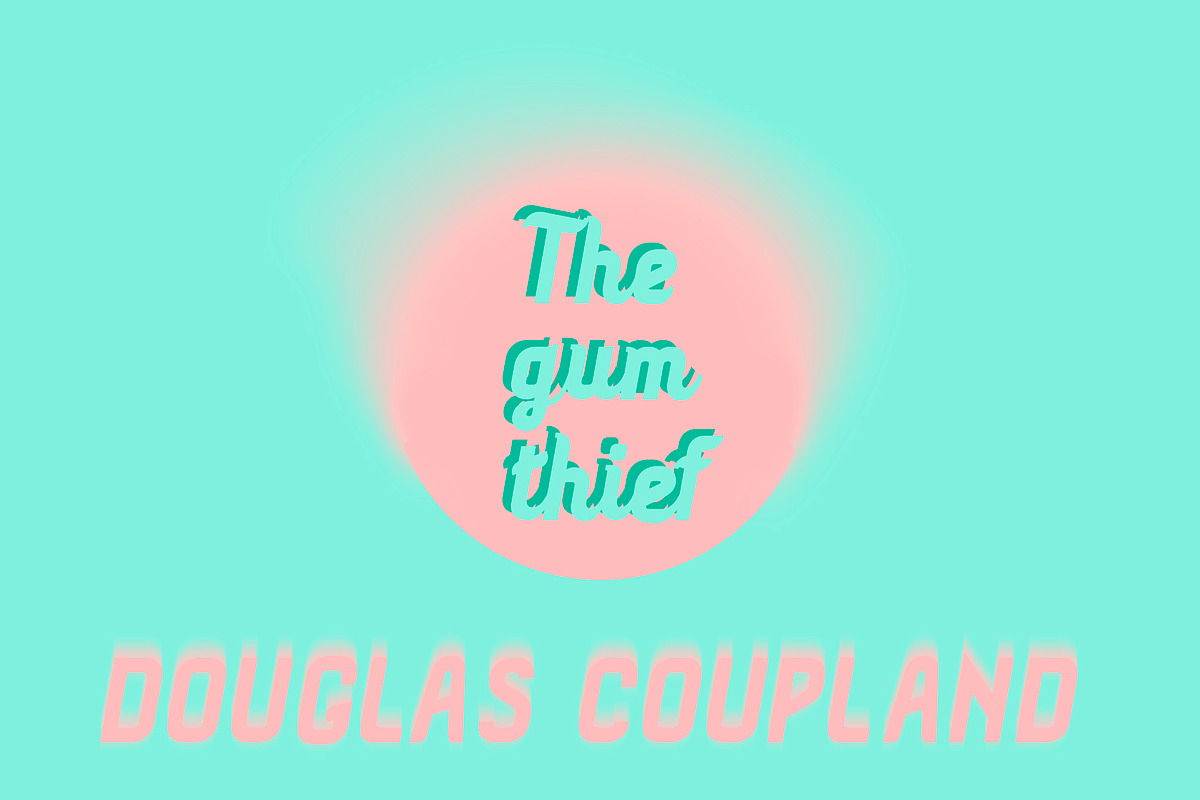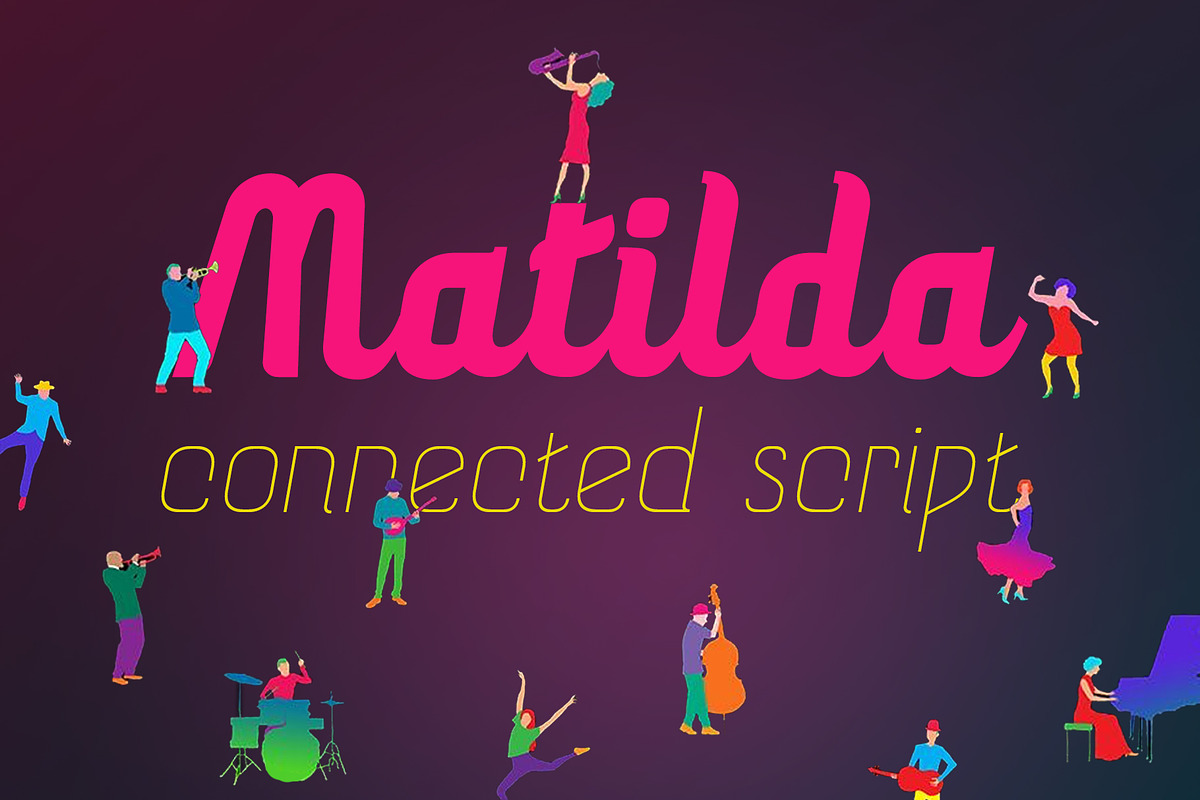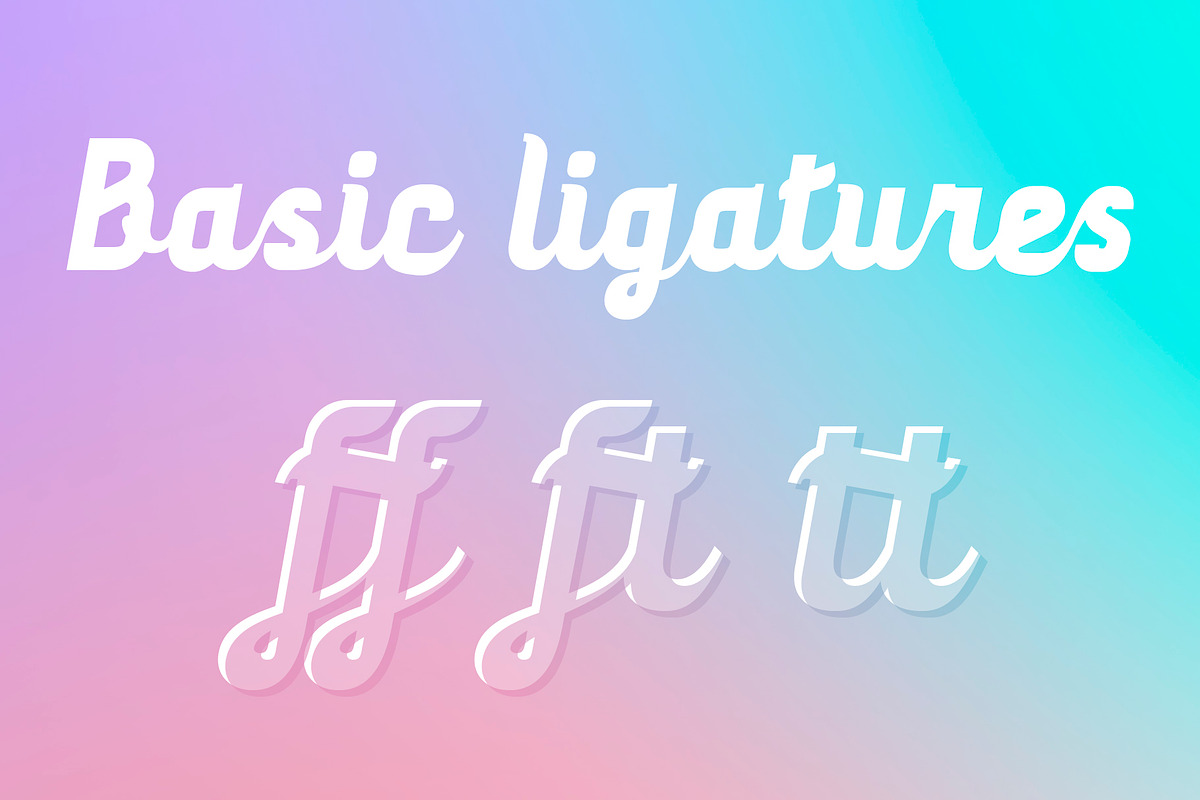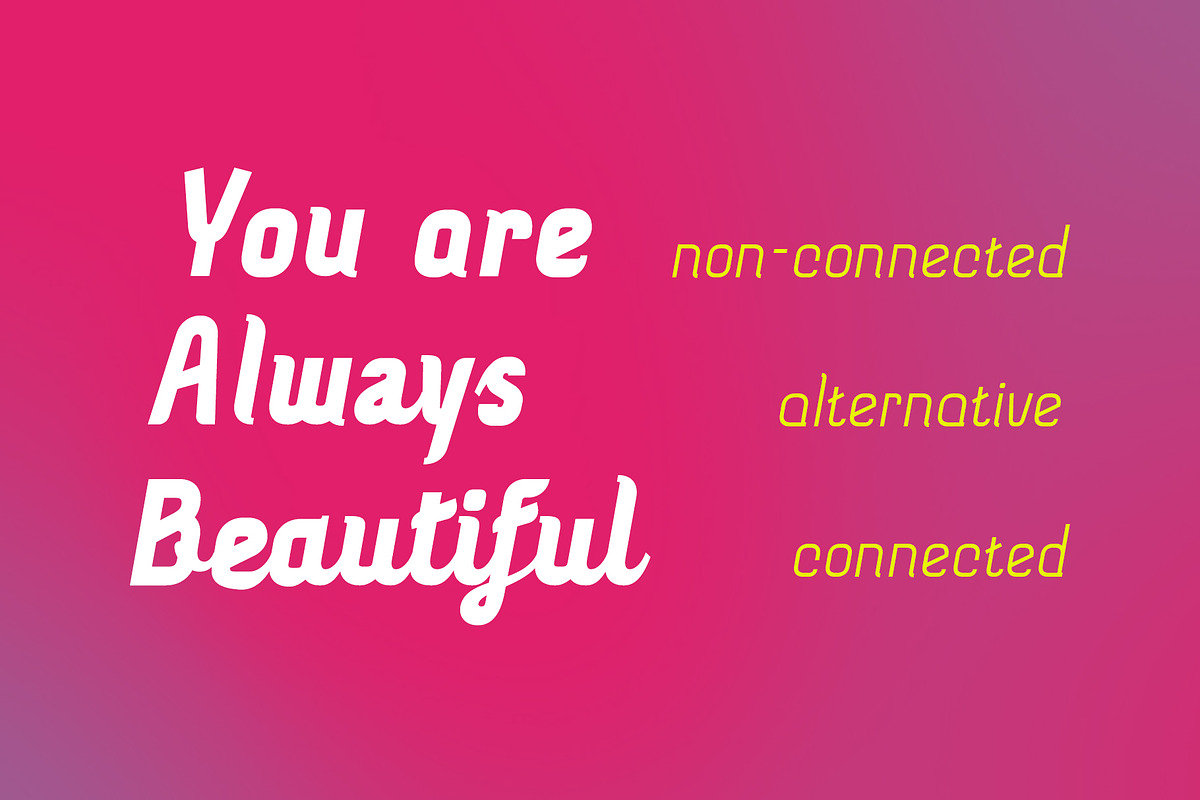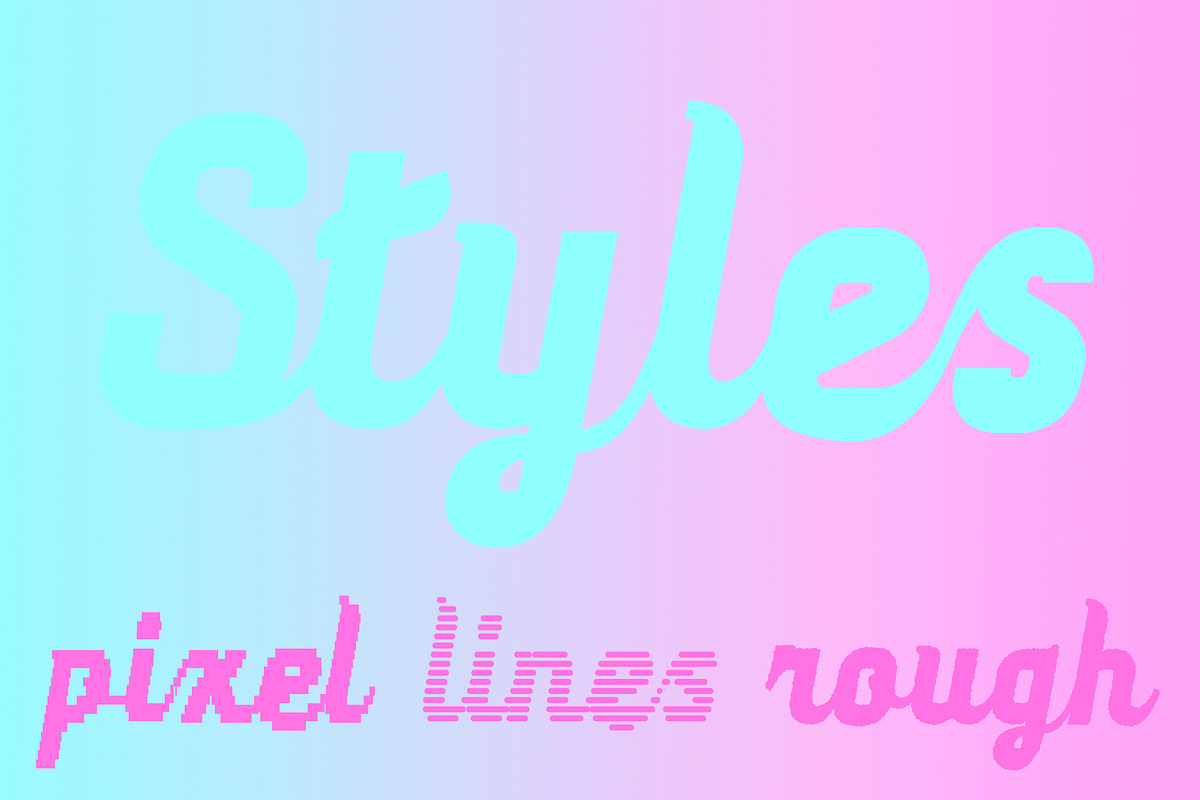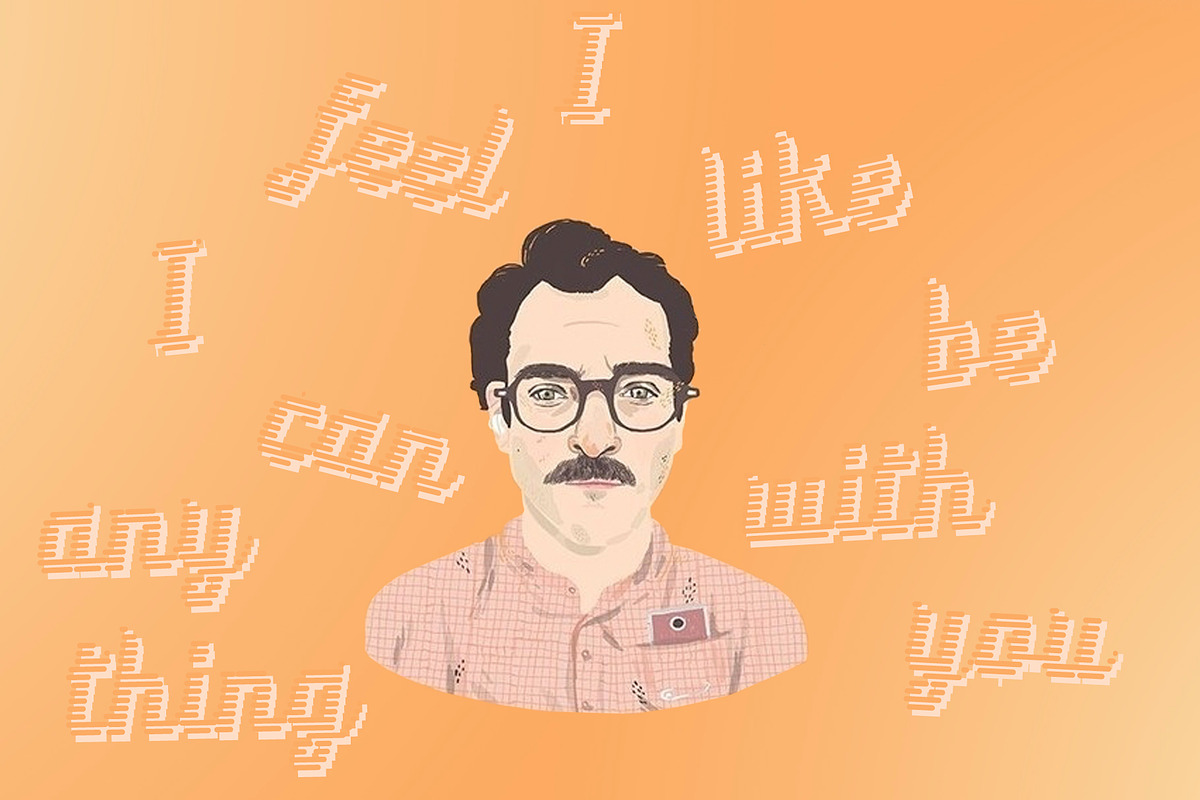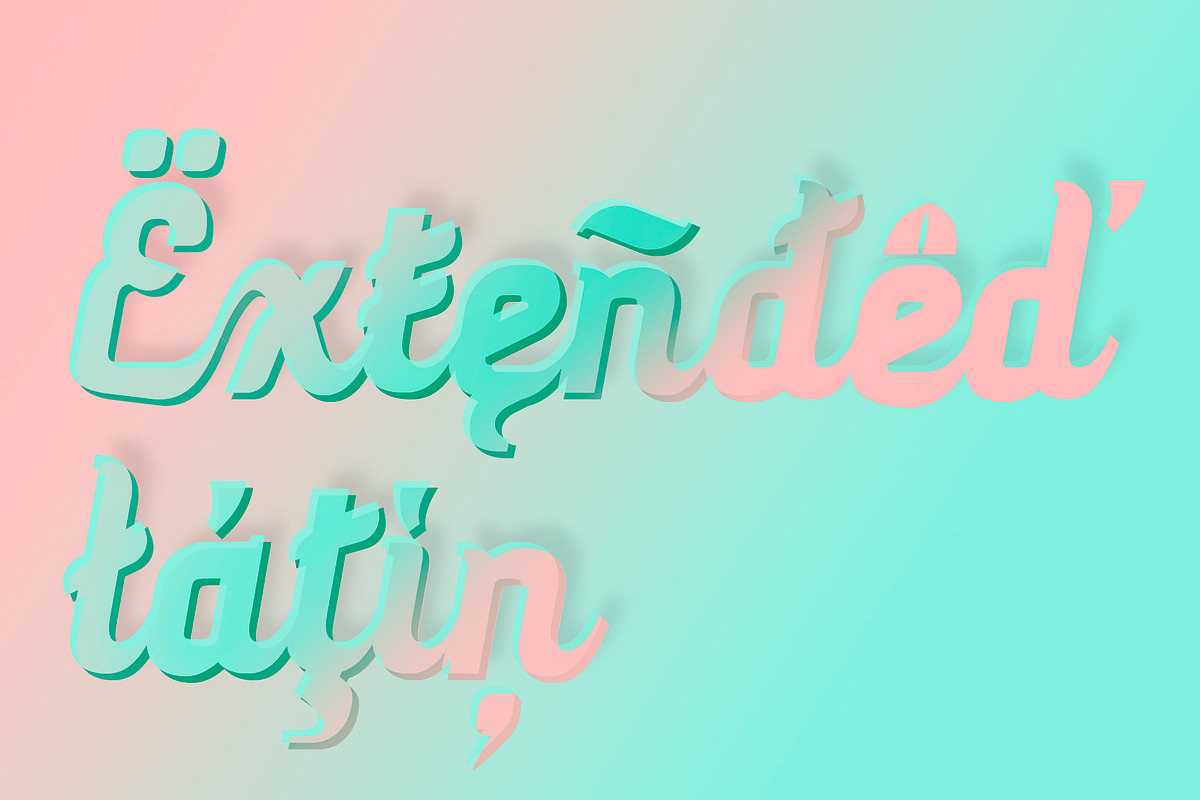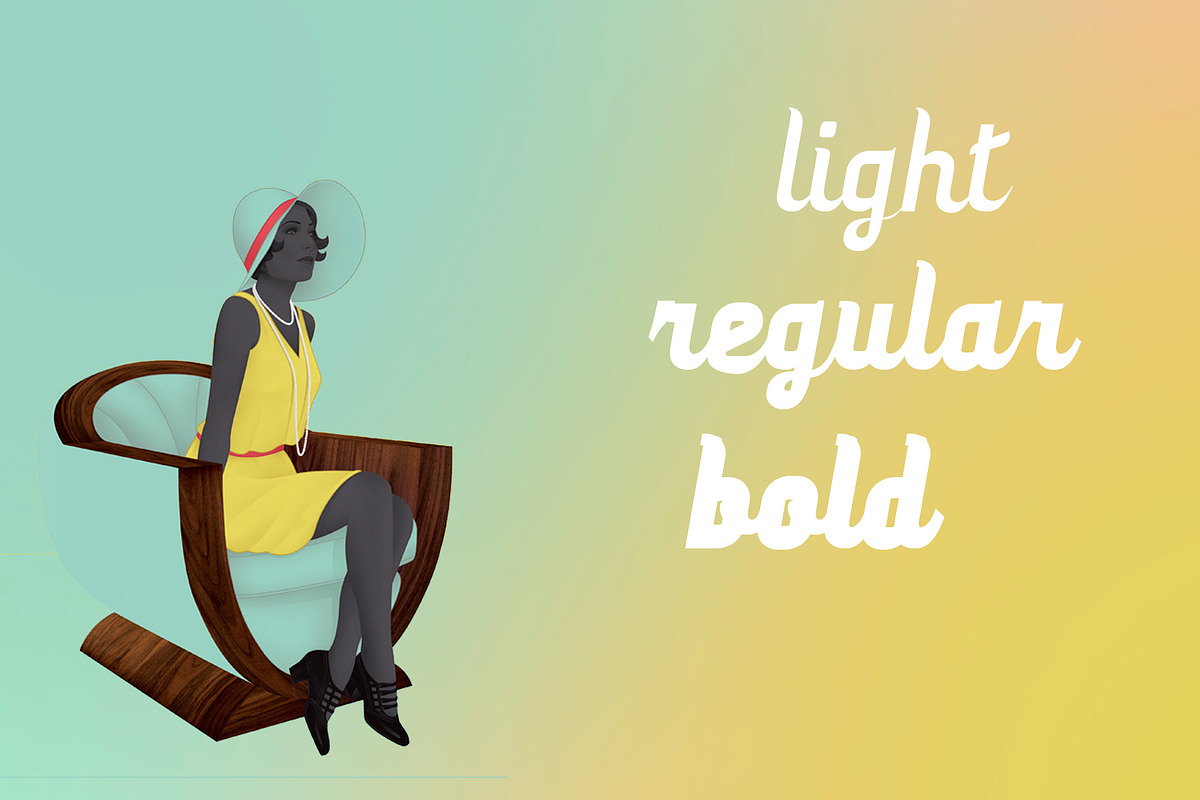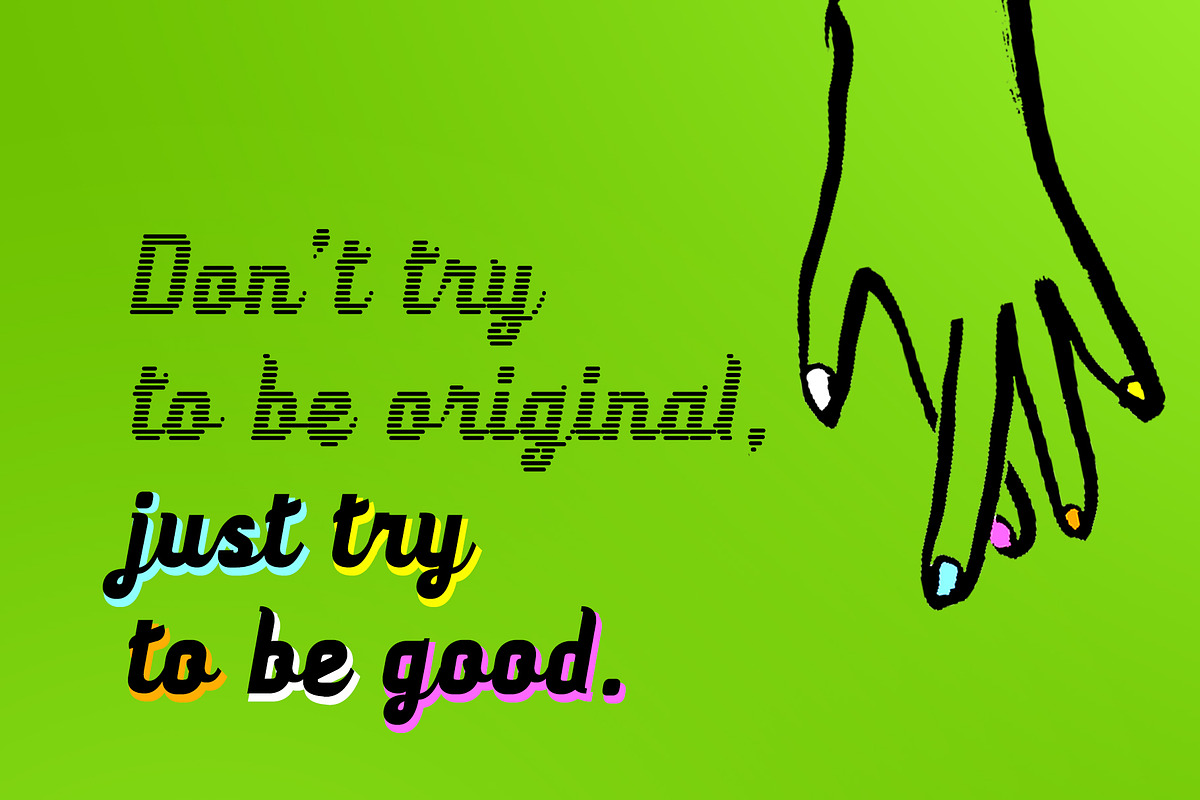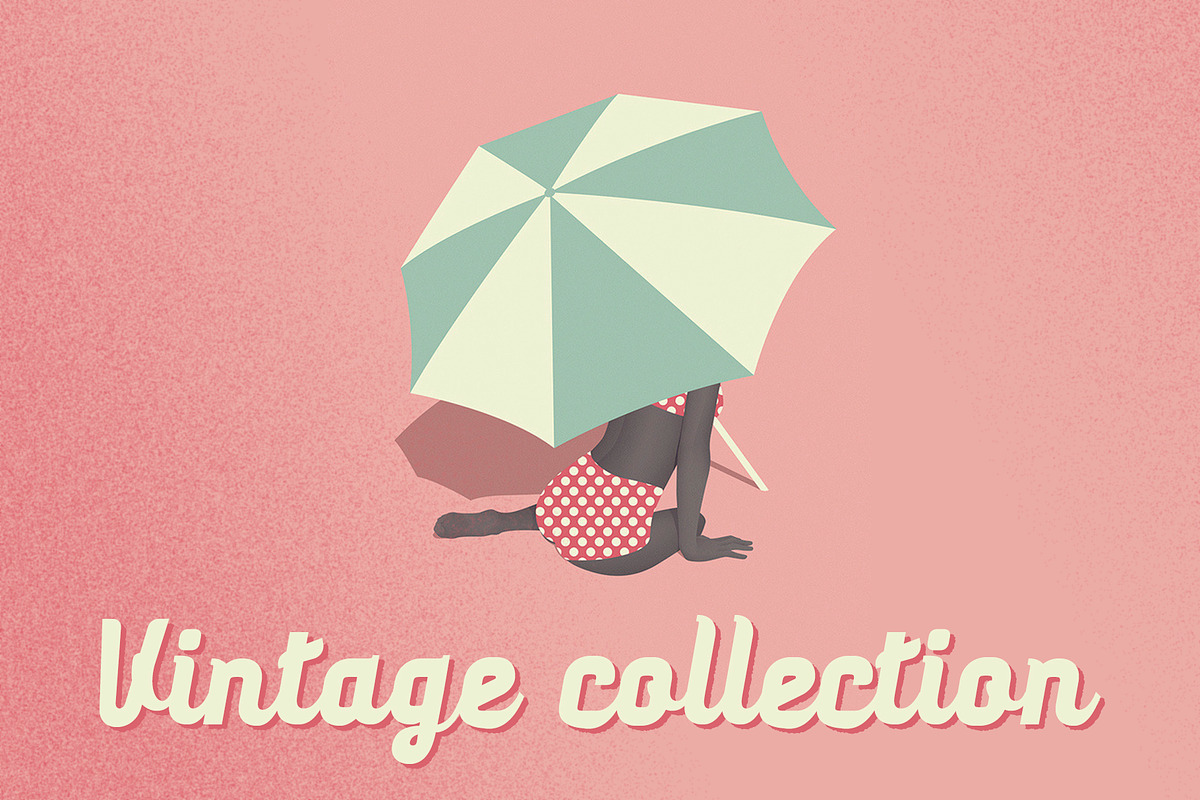
MaTilda
MaTilda is connected script based on my previous typeface Tilda https://crmrkt.com/WBKQ2d It has alternates for each symbol of basic latin so you can chose between connected and non-connected. The typeface supports all european languages and has special characters like french Œ, Æ, Î, È, german Ü, Ö, Ä, ß, spanish Ñ, Ç, Ó, scandinavian Ø, Å, Ð and many other. MaTilda is a new "Lobster" it perfectly fits for signing cards, writing titles or typing a message in a funny way! More of all it has magic karma for increasing your sales, be it candies or perfume. Just check out how looks your phrase or name typing it in a window bellow.